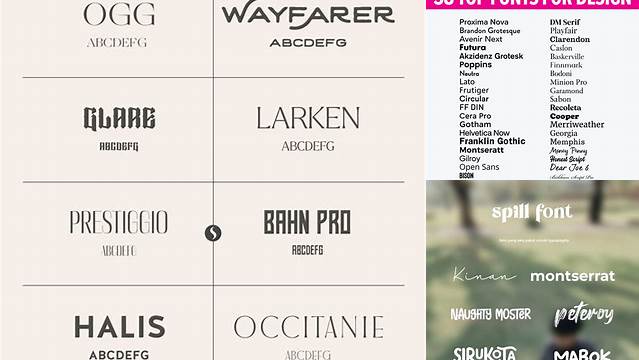
Best Fonts For Editing: A 2024 Guide
Choosing the right font can dramatically impact the visual appeal and readability of your projects. Whether you're designing a website, creating marketing materials, or working on a personal project, selecting the perfect font is crucial. This guide will explore a variety of new fonts for editing in 2024, ensuring your designs stand out and communicate effectively. Let's dive in, guys!
1. Understanding Font Types for Editing
Before we jump into specific fonts, let's understand the different categories. Knowing your serifs from your sans-serifs is the first step in making an informed decision. Serifs, those little feet at the end of the strokes, give a traditional and formal look, great for body text in print. Sans-serifs, without those feet, offer a cleaner, more modern feel, ideal for digital screens and headlines. Script fonts bring a touch of elegance and personality, while display fonts are bold and unique, perfect for catching the eye but best used sparingly.
Key Considerations: When selecting fonts, think about the overall tone and message of your project. A playful script might be fantastic for a children's book but not so much for a legal document. Readability is also key; ensure your font is clear and easy on the eyes, especially for large blocks of text. Finally, consider the context – how will the font look on different devices and in various sizes? Testing is crucial to ensure consistency.
Font Pairing: One font rarely does it all. Pairing fonts effectively can elevate your design. A classic combo is a serif for body text and a sans-serif for headings. The contrast creates visual interest and hierarchy. Tools like FontPair and Adobe Fonts can suggest harmonious pairings, but don't be afraid to experiment and develop your own unique style. Always aim for contrast in weight and style, but maintain a cohesive feel.
2. Top Sans-Serif Fonts for Modern Designs
Sans-serif fonts are the workhorses of modern design, offering a clean and versatile aesthetic. These fonts are particularly effective for digital interfaces, websites, and branding materials where clarity and legibility are paramount. When choosing a sans-serif font, consider its weight variations and overall personality to ensure it aligns with your design goals.
2.1. Futura: The Geometric Classic
Futura, a geometric sans-serif designed in the 1920s, remains a timeless choice for its clean lines and modern feel. Its precise geometric shapes convey a sense of efficiency and sophistication, making it ideal for corporate branding, logos, and headlines. Futura's strong visual presence can add a touch of elegance to any project. This font shines in minimalistic designs where its form can truly stand out.
2.2. Helvetica: The Neutral Workhorse
No discussion of sans-serif fonts is complete without mentioning Helvetica. Universally recognized for its neutrality and readability, Helvetica is a staple in graphic design. Its clean, unadorned forms make it incredibly versatile, suitable for everything from body text to signage. Helvetica’s ubiquity is a testament to its effectiveness, but it also means that using it requires careful consideration to avoid a generic feel. Consider using different weights and sizes to make it your own.
2.3. Montserrat: The Urban Choice
Inspired by the signage of the Montserrat neighborhood in Buenos Aires, Montserrat offers a contemporary twist on the classic sans-serif. Its bold, geometric letterforms exude confidence and modernity, making it a great choice for headlines, logos, and branding. Montserrat's robust character makes it a standout option for designs that need a touch of urban flair. Try it in uppercase for a powerful statement.
2.4. Open Sans: The Web-Friendly Option
Optimized for readability on screens, Open Sans is a popular choice for websites and digital applications. Its open forms and neutral appearance make it easy on the eyes, even in smaller sizes. Open Sans is a versatile workhorse that pairs well with many other fonts, making it a reliable choice for body text and user interfaces. Its popularity ensures wide browser support, a crucial factor for web design.
2.5. Lato: The Warm Sans-Serif
Lato is a sans-serif typeface designed with warmth and friendliness in mind. Its semi-rounded details give it a more approachable feel than some of its more rigid counterparts. Lato's versatility makes it suitable for a wide range of applications, from body text to headlines, and its readability is excellent both on screen and in print. Lato is a great option for projects that need a touch of personality without sacrificing clarity.
3. Serif Fonts: Timeless Elegance
Serif fonts, characterized by the small decorative strokes (serifs) at the ends of their letterforms, exude a sense of tradition and sophistication. They are often favored for print materials, such as books, magazines, and newspapers, where their enhanced readability in long passages is a significant advantage. However, they also have a place in digital design, especially for headings and branding elements where a touch of elegance is desired. Serif fonts bring a sense of history and authority to your designs.
3.1. Times New Roman: The Classic Choice
Times New Roman is perhaps the most well-known serif font, a staple in formal documents and academic writing. Its high readability and classic appearance make it a reliable choice for body text, particularly in print. However, its ubiquity can also make it feel a bit dated, so consider using it strategically or pairing it with a more modern font to add interest.
3.2. Garamond: The Elegant Option
Garamond is renowned for its refined elegance and timeless appeal. Its graceful letterforms and delicate serifs make it a favorite for books, magazines, and other print materials where a touch of sophistication is desired. Garamond’s readability and aesthetic appeal make it a versatile choice for both body text and headings, though it shines particularly in longer texts where its classic beauty can be fully appreciated.
3.3. Merriweather: The Screen-Optimized Serif
Designed specifically for on-screen reading, Merriweather offers a comfortable and readable experience even at smaller sizes. Its robust serifs and slightly condensed letterforms give it a distinctive character while maintaining excellent legibility. Merriweather is a great choice for websites, blogs, and digital publications where readability is paramount.
3.4. Playfair Display: The Dramatic Serif
Playfair Display is a high-contrast serif typeface that exudes elegance and sophistication. Its dramatic letterforms and distinctive serifs make it ideal for headlines, titles, and branding elements where a touch of luxury is desired. Playfair Display is best used sparingly, as its strong visual presence can be overwhelming in large blocks of text. It pairs beautifully with sans-serif fonts for a balanced and modern look.
3.5. Libre Baskerville: The Web-Friendly Classic
Libre Baskerville is a web-optimized version of the classic Baskerville typeface, offering improved readability on screens. Its elegant serifs and balanced proportions make it a versatile choice for both body text and headings. Libre Baskerville’s classic appeal and modern optimization make it a reliable choice for websites, blogs, and digital publications.
4. Script Fonts: Adding Personality
Script fonts mimic the flowing strokes of handwriting, adding a personal and elegant touch to designs. They are ideal for invitations, logos, and branding materials where a sense of individuality and warmth is desired. However, script fonts should be used sparingly, as their intricate letterforms can be challenging to read in large blocks of text. Choosing the right script font can make your project feel truly unique.
4.1. Brush Script MT: The Casual Classic
Brush Script MT is a widely recognized script font known for its informal and hand-drawn appearance. Its flowing strokes and casual feel make it suitable for a variety of applications, from posters to invitations. Brush Script MT’s friendly and approachable style can add a touch of personality to any design.
4.2. Pacifico: The Beachy Vibe
Pacifico is a script font with a relaxed and friendly vibe, reminiscent of vintage surf posters. Its rounded letterforms and flowing strokes evoke a sense of warmth and nostalgia. Pacifico is a great choice for projects that need a touch of retro charm or a laid-back feel.
4.3. Lobster: The Bold Script
Lobster is a bold script font with a distinctive retro aesthetic. Its condensed letterforms and flowing strokes give it a unique and eye-catching appearance. Lobster is best used for headlines and display text where its strong personality can shine. It pairs well with simple sans-serif fonts for a balanced look.
4.4. Great Vibes: The Elegant Touch
Great Vibes is an elegant script font with beautiful calligraphic flourishes. Its graceful letterforms and flowing strokes make it ideal for wedding invitations, elegant branding, and other projects where a touch of sophistication is desired. Great Vibes adds a sense of occasion and refinement to any design.
4.5. Kaushan Script: The Energetic Option
Kaushan Script is a brush-style script font with an energetic and dynamic feel. Its irregular strokes and textured appearance give it a hand-drawn quality. Kaushan Script is a great choice for projects that need a touch of personality and informality, such as logos, posters, and social media graphics.
5. Display Fonts: Making a Statement
Display fonts are designed to grab attention and make a statement. They are typically used for headlines, logos, and other prominent design elements where visual impact is crucial. Display fonts come in a wide variety of styles, from bold and geometric to whimsical and playful. While they can add a lot of personality to a design, they should be used sparingly, as their unique characteristics can sometimes hinder readability in large blocks of text. Selecting the right display font can set the tone for your entire project.
5.1. Bebas Neue: The Tall and Bold
Bebas Neue is a popular sans-serif display font known for its tall, condensed letterforms and clean lines. Its modern and minimalist aesthetic makes it ideal for headlines, posters, and branding materials. Bebas Neue’s strong visual presence ensures that it stands out in any design.
5.2. Oswald: The Rounded Sans-Serif Display
Oswald is a sans-serif display font that blends classic proportions with a modern rounded feel. Its versatile design makes it suitable for both headlines and body text, though it shines particularly in headings. Oswald’s friendly and approachable style can add a touch of warmth to any project.
5.3. Montserrat Alternates: The Versatile Display
Montserrat Alternates offers a set of alternative glyphs for the Montserrat typeface, providing additional options for display text. These alternates include more stylized letterforms and unique ligatures, allowing for greater creativity and visual impact. Montserrat Alternates is a great way to add a distinctive touch to your designs.
5.4. Raleway: The Elegant Display Sans-Serif
Raleway is an elegant sans-serif typeface that works well for both display and text purposes. Its sleek letterforms and subtle details give it a sophisticated and modern appearance. Raleway is a versatile choice for branding, logos, and website design.
5.5. ChunkFive: The Slab-Serif Statement
ChunkFive is a bold slab-serif display font that exudes confidence and strength. Its chunky letterforms and strong serifs make it ideal for headlines, posters, and other applications where a powerful visual statement is desired. ChunkFive is a great choice for projects that need to grab attention.
6. Pairing Fonts Effectively
Choosing two fonts that complement each other can significantly enhance the visual harmony of your design. The key is to create contrast while maintaining a cohesive feel. A common strategy is to pair a serif font with a sans-serif font, using the serif for body text and the sans-serif for headings, or vice versa. This creates visual interest and helps establish a clear hierarchy.
6.1. Serif and Sans-Serif Combinations
Pairing a classic serif font like Garamond with a modern sans-serif like Helvetica can create a timeless and balanced look. The serif font adds a touch of elegance, while the sans-serif font provides clarity and modernity. Another popular combination is Merriweather (serif) with Open Sans (sans-serif), which offers excellent readability both on screen and in print.
6.2. Combining Fonts with Different Weights
Using different weights of the same typeface family is a simple yet effective way to create visual hierarchy. For example, you could use a bold weight for headings and a regular weight for body text. This approach ensures consistency while providing the necessary contrast to guide the reader’s eye.
6.3. Pairing Fonts with Contrasting Styles
Combining fonts with contrasting styles can create a dynamic and engaging design. For instance, pairing a script font with a simple sans-serif font can add personality without sacrificing readability. However, it’s important to use this approach sparingly and ensure that the fonts complement each other rather than clash.
6.4. Using Font Pairing Tools
Several online tools can help you find harmonious font pairings. FontPair and Adobe Fonts are excellent resources for discovering combinations that work well together. These tools often provide suggestions based on the mood and style you’re aiming for, making the font selection process more efficient.
6.5. Experimenting with Different Combinations
Ultimately, the best way to find the perfect font pairing is to experiment and trust your instincts. Try out different combinations, and pay attention to how the fonts interact with each other. Consider the overall tone and message of your project, and choose fonts that support those goals. Don't be afraid to break the rules and create something unique.
7. Font Trends in 2024
Staying up-to-date with the latest font trends can help your designs feel fresh and contemporary. In 2024, we're seeing a resurgence of classic styles with a modern twist, as well as a growing interest in variable fonts and hand-drawn typefaces. Understanding these trends can help you make informed choices and create designs that resonate with your audience.
7.1. Variable Fonts
Variable fonts are a major trend in 2024, offering unparalleled flexibility and efficiency. These fonts contain multiple variations within a single file, allowing designers to adjust weight, width, and other parameters with precision. Variable fonts can significantly reduce file sizes and improve website loading times while providing a wide range of stylistic options. If you aren't familiar with this, you really should be!
7.2. Retro and Vintage Styles
Nostalgia is a powerful design trend, and retro and vintage-inspired fonts are making a comeback. These typefaces evoke a sense of history and charm, adding character to logos, posters, and branding materials. Script fonts with a vintage feel and serif fonts with classic proportions are particularly popular.
7.3. Bold and Geometric Fonts
Bold and geometric fonts continue to be a strong trend in 2024, reflecting a desire for clarity and impact. These typefaces are ideal for headlines and display text, where their strong visual presence can grab attention. Sans-serif fonts with clean lines and geometric shapes are particularly favored.
7.4. Hand-Drawn and Organic Typefaces
Hand-drawn and organic typefaces offer a more personal and approachable feel. These fonts mimic the irregularities of handwriting, adding warmth and authenticity to designs. They are well-suited for projects that need a human touch, such as branding for artisanal products or creative services.
7.5. Experimental and Unique Fonts
Designers are increasingly experimenting with unique and unconventional fonts that push the boundaries of typography. These typefaces often feature unusual shapes, intricate details, and unexpected combinations of styles. Experimental fonts can add a distinctive and memorable touch to designs, but they should be used judiciously to ensure readability.
8. Where to Find New Fonts
Finding the perfect fonts for your projects requires exploring various resources and platforms. Whether you're looking for free options or premium typefaces, there are numerous websites and marketplaces offering a wide selection of fonts to suit your needs.
8.1. Google Fonts
Google Fonts is a popular resource for free, open-source fonts. It offers a vast library of high-quality typefaces that are easy to use and compatible with web and print projects. Google Fonts includes a variety of styles, from classic serifs and sans-serifs to more experimental display fonts. The fonts are optimized for web use, ensuring fast loading times and excellent readability.
8.2. Adobe Fonts
Adobe Fonts is a subscription-based service that provides access to thousands of fonts from leading type foundries. It's integrated with Adobe Creative Cloud, making it easy to use fonts in your design projects. Adobe Fonts offers a wide range of styles and weights, as well as exclusive typefaces that you won't find anywhere else. The service also includes font management tools and unlimited usage rights.
8.3. MyFonts
MyFonts is a large online marketplace for commercial fonts. It offers a vast selection of typefaces from independent foundries and renowned designers. MyFonts provides advanced search filters, allowing you to find fonts based on style, weight, and other criteria. The platform also offers font licensing options for various uses, including web, desktop, and embedding.